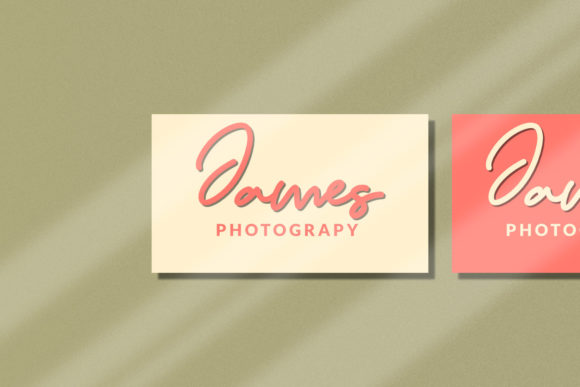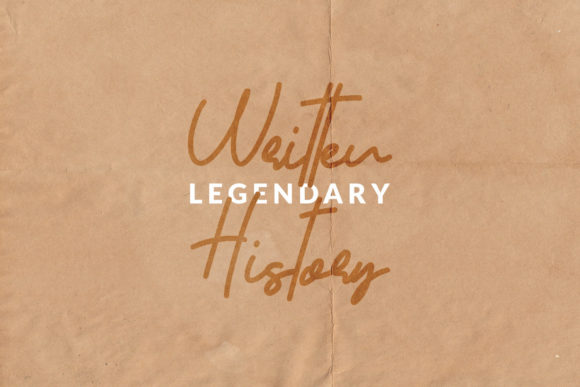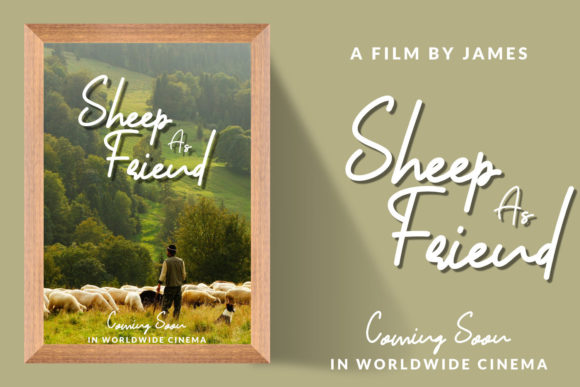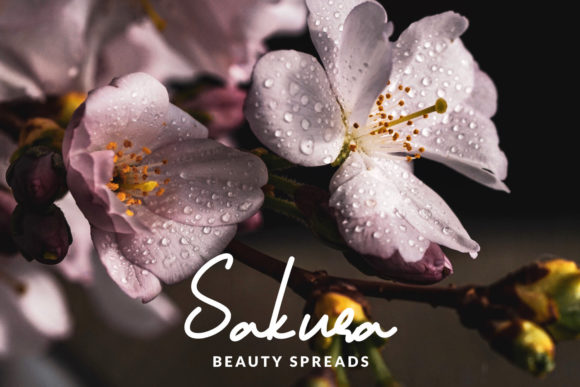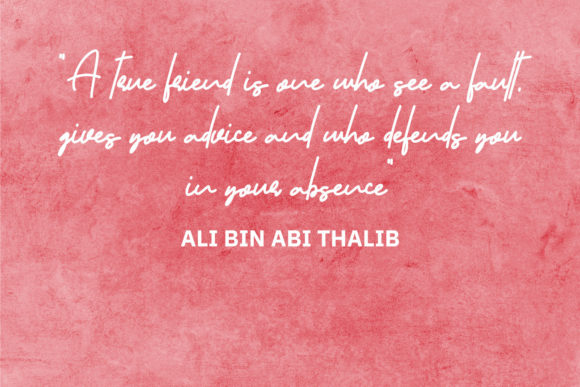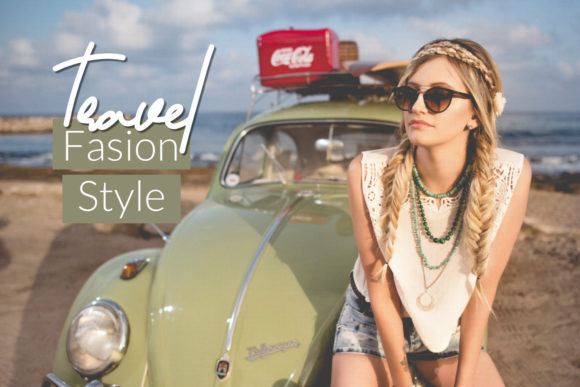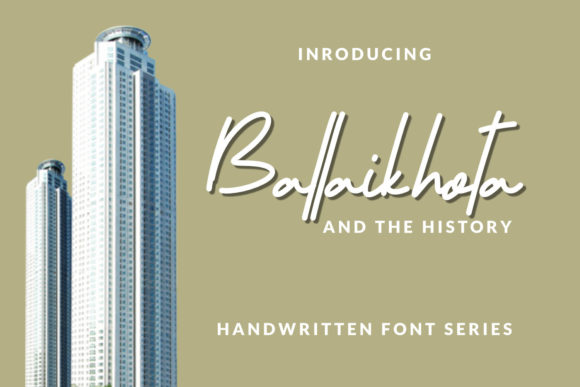
Ballaikhota Font: Elevate Your Designs with Elegance and Flair
In the world of typography, fonts play a crucial role in bringing designs to life. Among the numerous fonts available, Ballaikhota stands out for its delicate, elegant, and flowing handwritten style. This beautiful font is designed to add a touch of sophistication and refinement to any design project. In this article, we’ll explore the features and benefits of Ballaikhota font, and how it can elevate your creative ideas.
The Beauty of Ballaikhota Font
Ballaikhota is a delicate, elegant, and flowing handwritten font that boasts beautiful and well-balanced characters. Its unique design makes it an excellent choice for a wide range of design projects, from branding and advertising to packaging and digital media. The font’s flowing lines and curves create a sense of movement and fluidity, adding a dynamic touch to any design.
One of the key features of Ballaikhota font is its versatility. It can be used in various design contexts, from formal and professional to informal and playful. The font’s elegance and sophistication make it an ideal choice for luxury brands, high-end products, and creative agencies. At the same time, its playful and whimsical nature makes it suitable for more casual and creative projects.
Why Choose Ballaikhota Font?
So, why should you choose Ballaikhota font for your design projects? Here are a few compelling reasons:
• Elegance and Sophistication: Ballaikhota font exudes elegance and sophistication, making it perfect for high-end designs and luxury brands.
• Versatility: The font’s versatility allows it to be used in various design contexts, from formal to informal.
• Unique Character: Ballaikhota font has a unique character that sets it apart from other fonts, making it an excellent choice for designers looking to create distinctive designs.
• Easy to Read: The font’s flowing lines and curves make it easy to read, even at small sizes.
How to Use Ballaikhota Font in Your Designs
Using Ballaikhota font in your designs is easy and straightforward. Here are a few tips to get you started:
• Pair it with Other Fonts: Ballaikhota font pairs well with other fonts, creating a beautiful contrast that adds depth and interest to your designs.
• Experiment with Colors: The font’s elegance and sophistication make it suitable for a wide range of colors and color schemes.
• Use it for Headings and Titles: Ballaikhota font is perfect for headings and titles, adding a touch of elegance and sophistication to your designs.
• Add it to Your Brand Identity: Consider adding Ballaikhota font to your brand identity, using it consistently across your designs to create a cohesive and recognizable look.
In conclusion, Ballaikhota font is a beautiful and elegant handwritten font that can elevate your designs and bring them to life. Its unique character, versatility, and ease of use make it an excellent choice for designers and crafters looking to add a touch of sophistication and refinement to their projects. Whether you’re working on a luxury brand, a creative agency, or a personal project, Ballaikhota font is sure to impress.